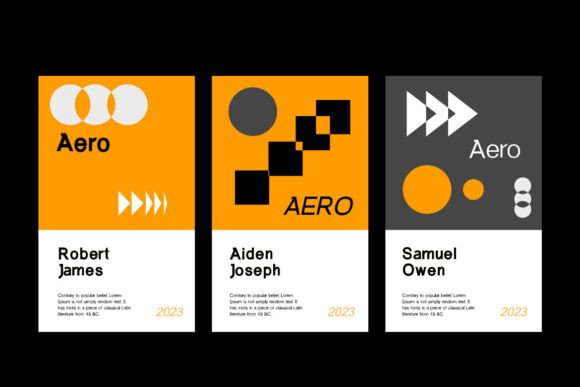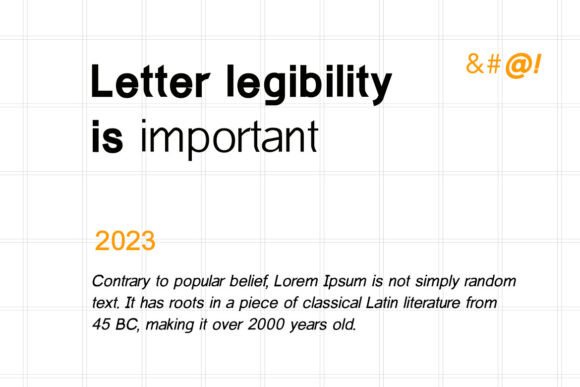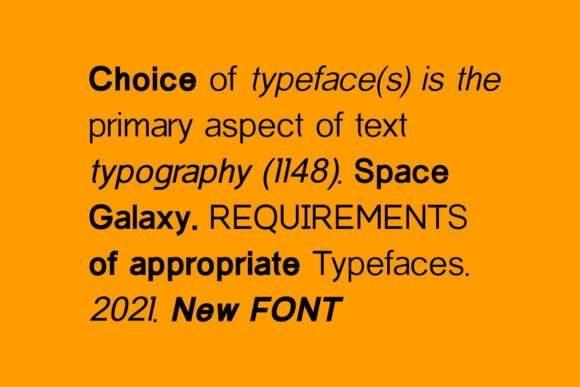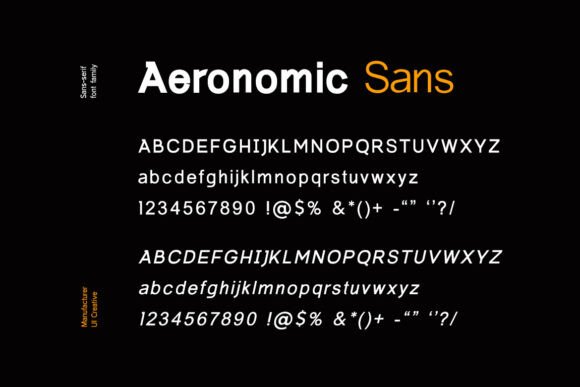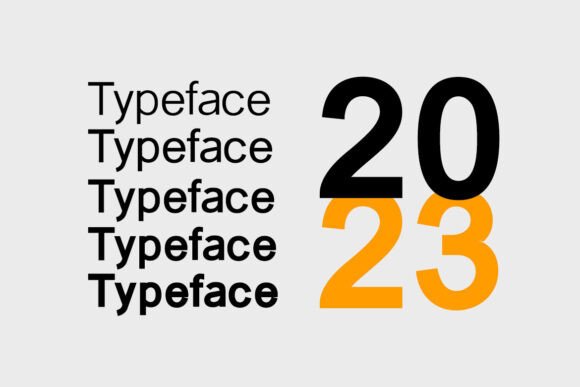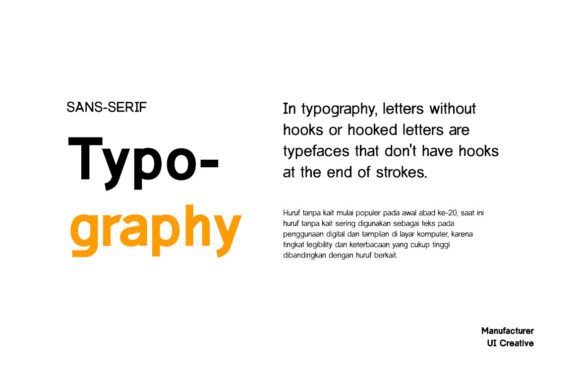
Take Flight with Aeronomic Font
Have you ever been struck by a burst of creative energy, and suddenly, the perfect font pops into your mind? It’s a feeling every designer knows well. For me, it was the moment I laid eyes on Aeronomic Sans Serif Family Font. Its sleek lines, elegant curves, and modern feel transported me to a world of endless possibilities.
Aeronomic Font is more than just a beautiful display font – it’s a versatile tool for designers. Whether you’re crafting a signature, designing a logo, or creating a stunning magazine cover, this font has the perfect balance of style and sophistication. Its ability to convey both masculine and feminine qualities makes it an ideal choice for fashion-related branding and editorial design.
- Unique Characteristics: Aeronomic Font features a unique blend of modern and classic design elements, resulting in a distinctive and recognizable visual identity.
Aeronomic Font Review
Overall, I was excited to dive into the Aeronomic Font, and it does deliver in some aspects. Here are the things that ✨ really work well:
- Unique Design**: The Aeronomic Font has a distinctive, futuristic feel that sets it apart from other fonts. It’s perfect for sci-fi or tech-related projects.
- High Legibility**: Despite its unusual design, the font is surprisingly easy to read, especially in larger sizes.
- Excellent for Headlines**: The font’s bold, eye-catching quality makes it ideal for use in headlines, titles, or any other context where you want to grab attention.
However, there are some limitations to consider ⚠️:
- Limited Character Set**: The Aeronomic Font has a relatively small character set, which may limit its usability in certain languages or for projects requiring a wide range of characters.
- Not Suitable for Body Text**: While the font is great for headlines, it may not be the best choice for body text due to its unconventional design, which can be tiring to read in large quantities.
Overall, the Aeronomic Font is a solid choice for projects that require a unique, futuristic feel. While it has some limitations, it’s a great option for those looking to add some visual interest to their designs.
Use Aeronomic Font for headings and titles to create a clean and modern look.
It’s also suitable for body text when you want to add a touch of sophistication.
Consider pairing it with a bold font for emphasis or to create visual hierarchy.
Aeronomic Font is a sans-serif font known for its clean lines, modern look, and readability. However, there are several alternatives that designers can use depending on their specific needs.